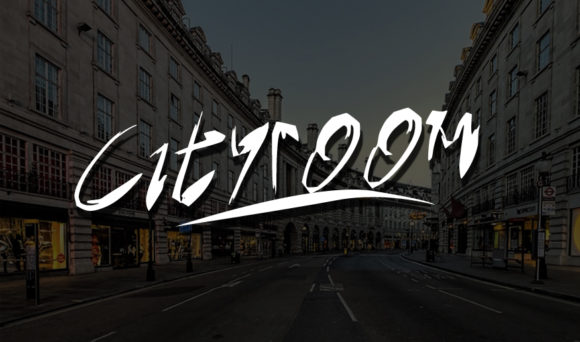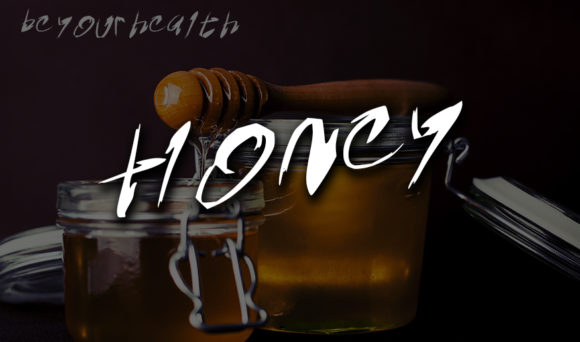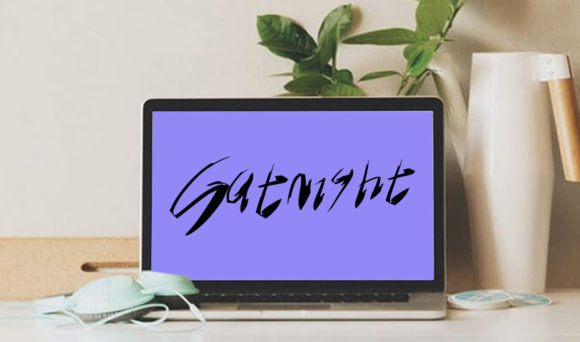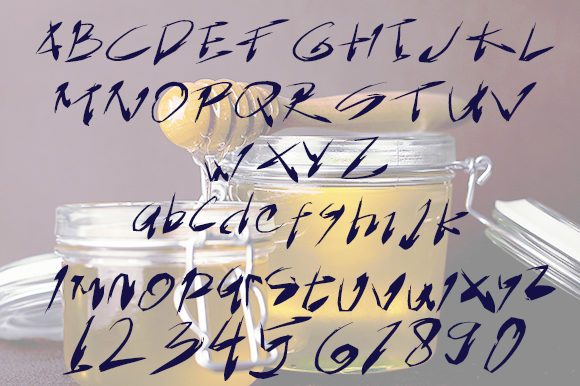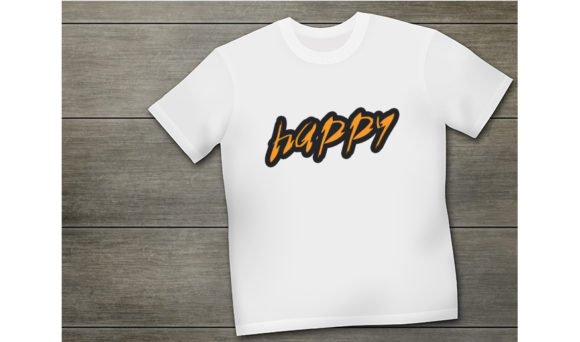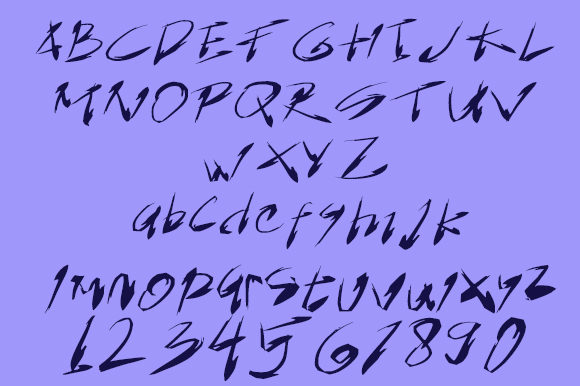
Introduction to Japar Font Font
Fonts play a crucial role in design, and the Japar Font font is a typeface that brings both character and versatility to any project. Whether you’re working on a branding project, a website, or a print design, the Japar Font font offers a unique style that can elevate your work.
Japar is a bold and urban handwritten font with a rough edge.
It will put a contemporary twist on any design idea .
Key Features of Japar Font Font
Why Choose Japar Font Font?
The Japar Font font is more than just a typeface – it’s a design tool that helps you communicate your message with style and clarity. Its unique character set and versatile design make it suitable for a wide range of applications, from elegant invitations to bold headlines.
With its carefully crafted letterforms and balanced proportions, the Japar Font font ensures readability and visual appeal across all mediums.
What makes Japar Font font special?
The Japar Font font stands out with its unique design, exceptional readability, and versatility across various design applications.